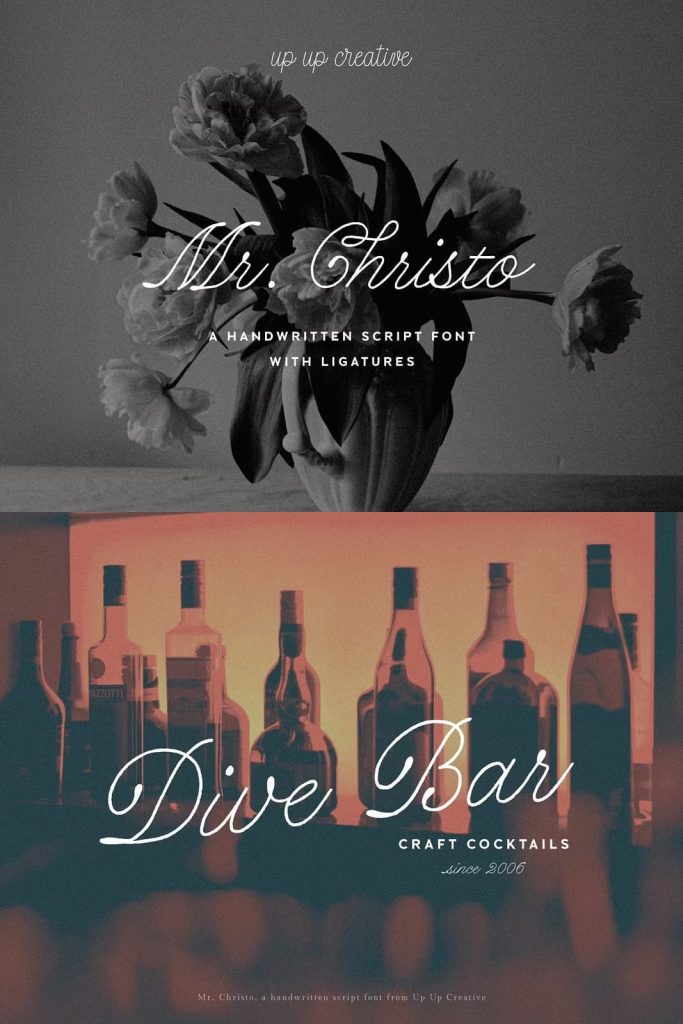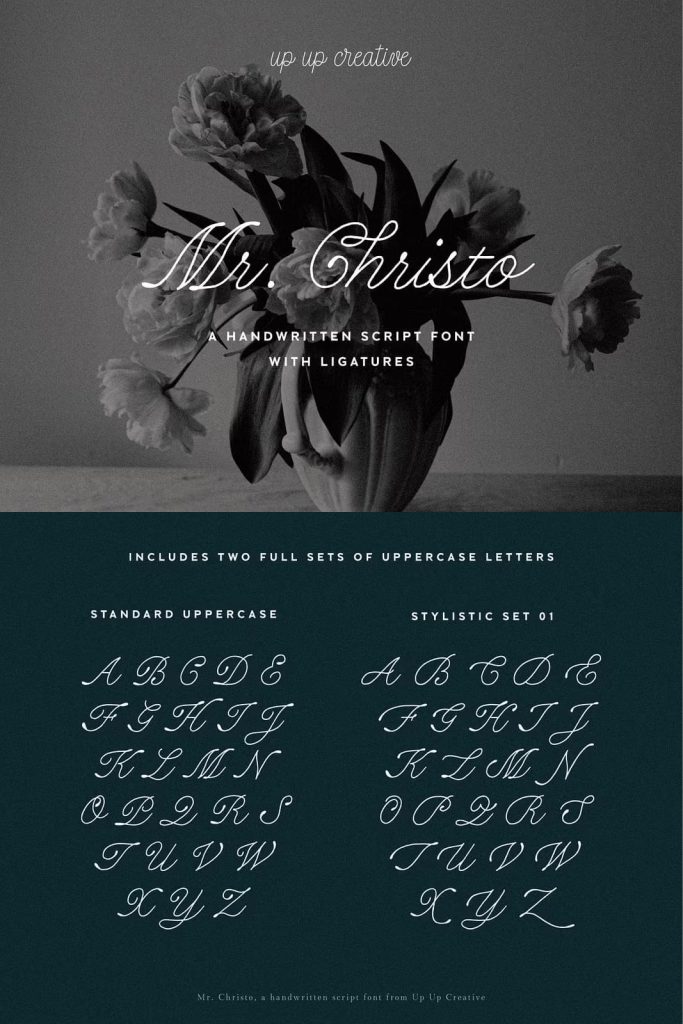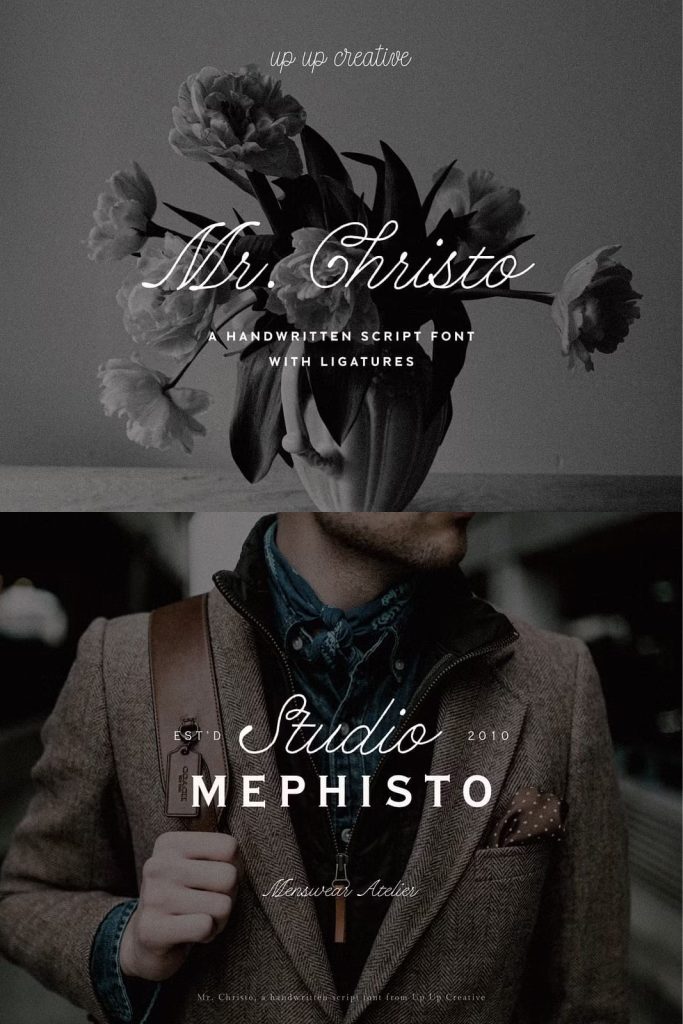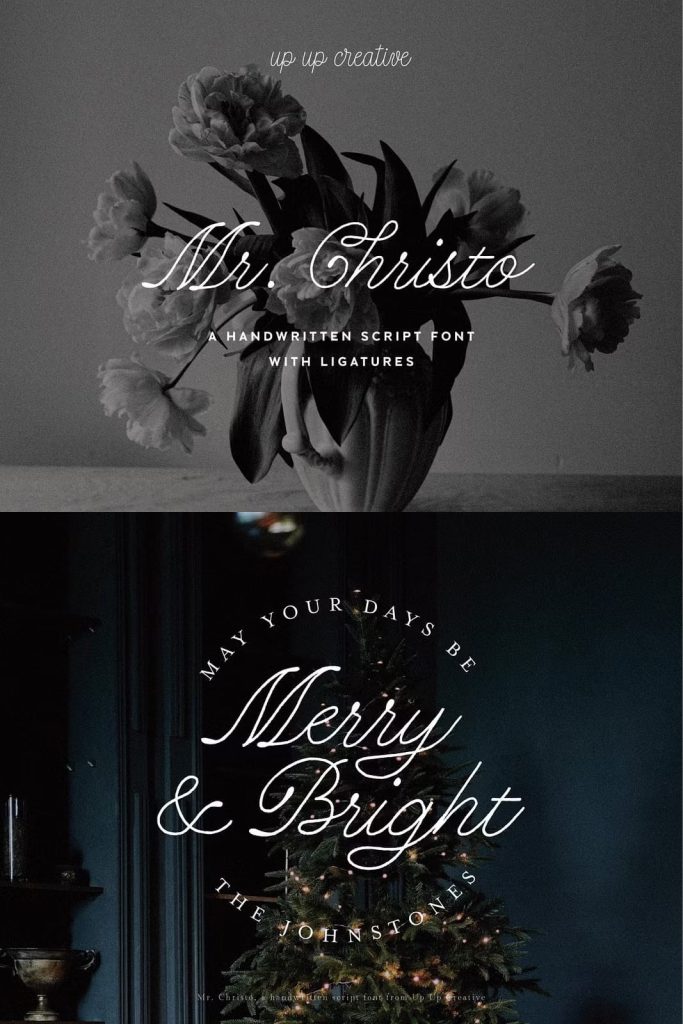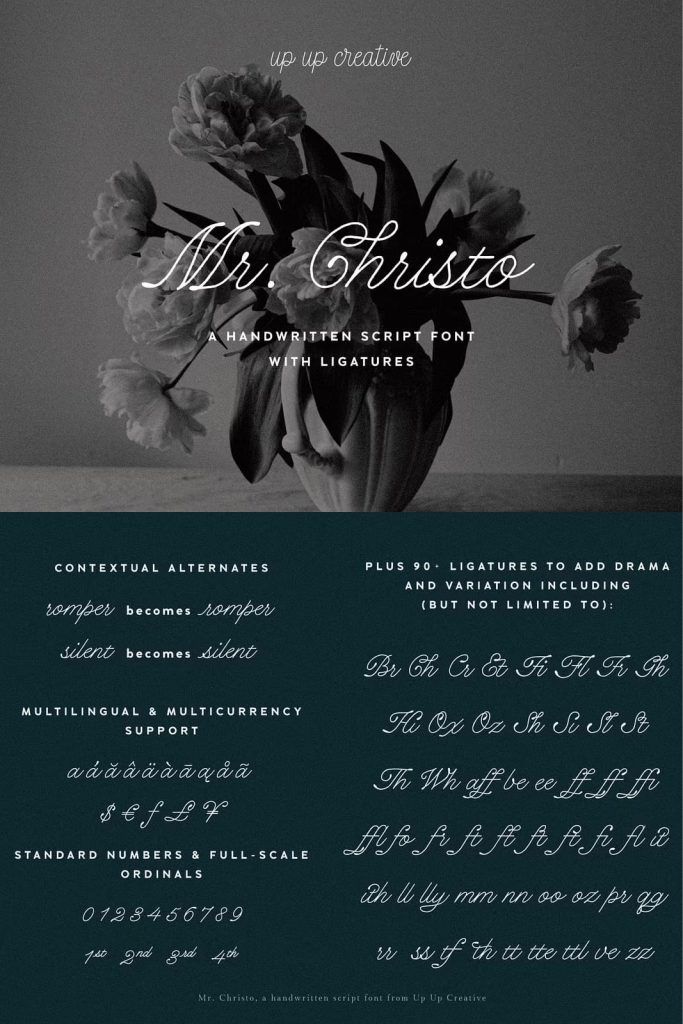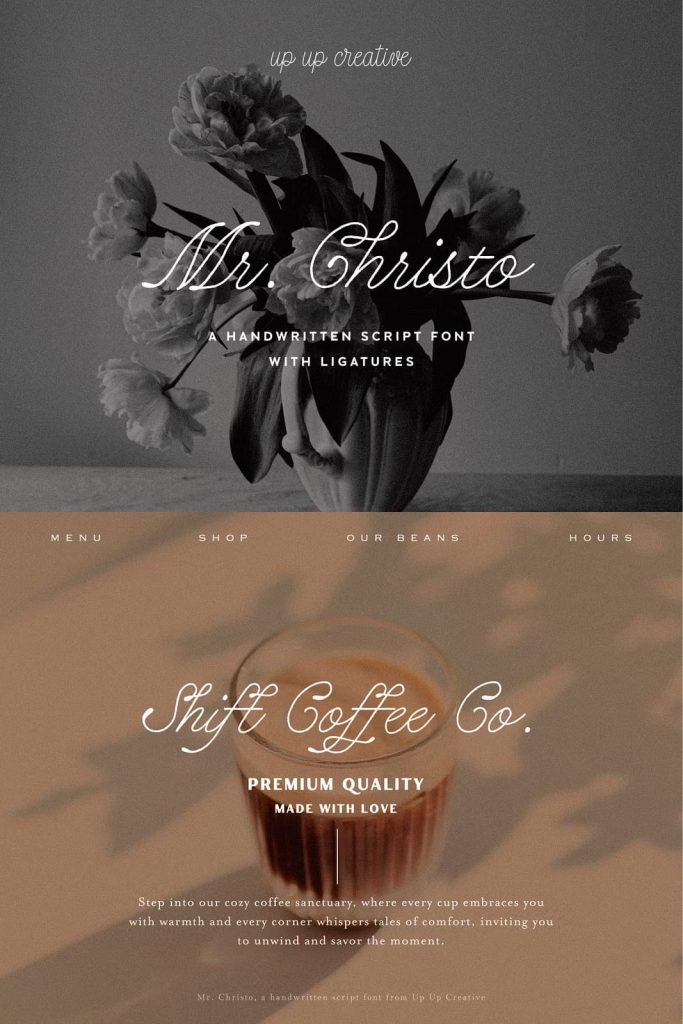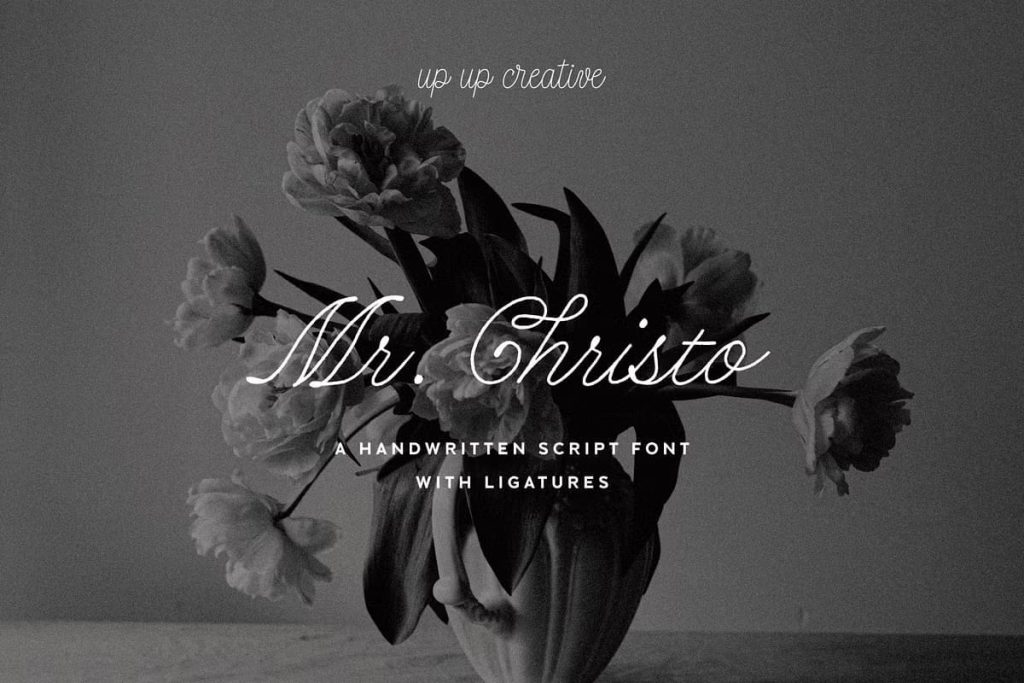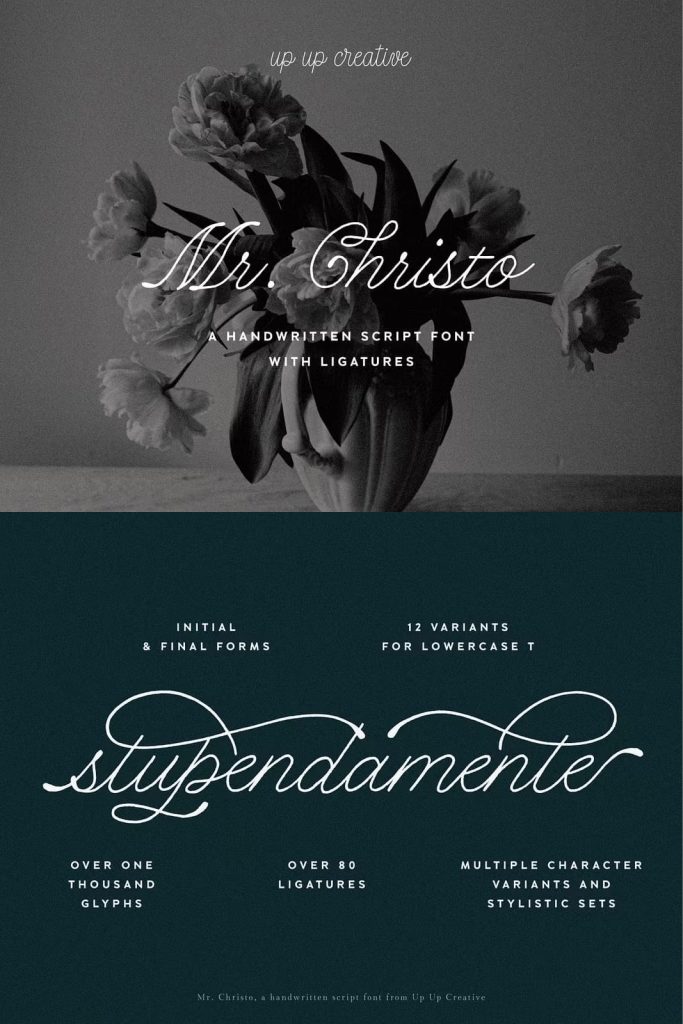
Meet Mr. Christo, a charming, elegant script font designed to elevate your projects to new heights. Its friendly yet sophisticated appearance makes it a versatile choice. What’s more, it’s packed with features that ensure it’s as useful as it is delightful.